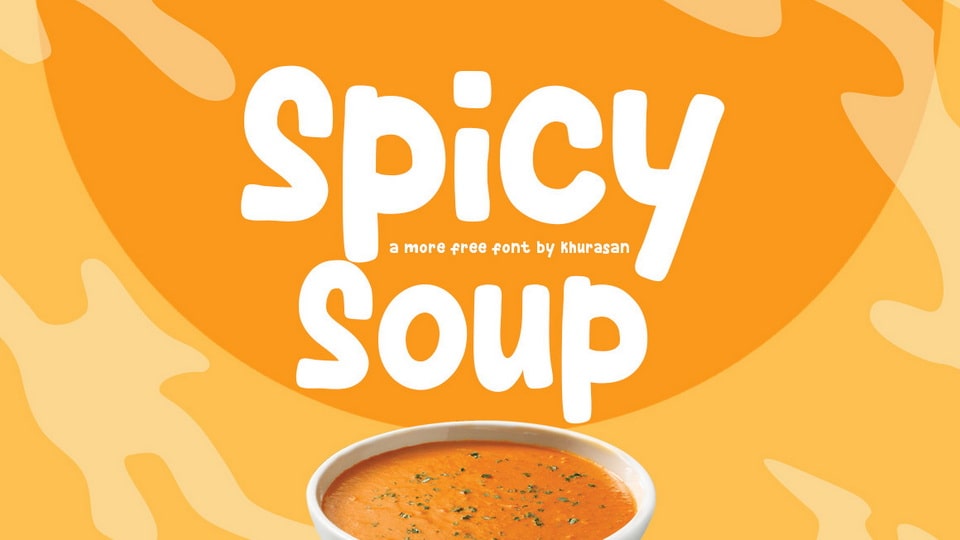
Download Spicy Soup font, a hand drawn typeface that captures the essence of expressive hand lettering and whimsical illustrations. Spicy Soup font boasts a dynamic and lively design, with each letter radiating a sense of character and playfulness.